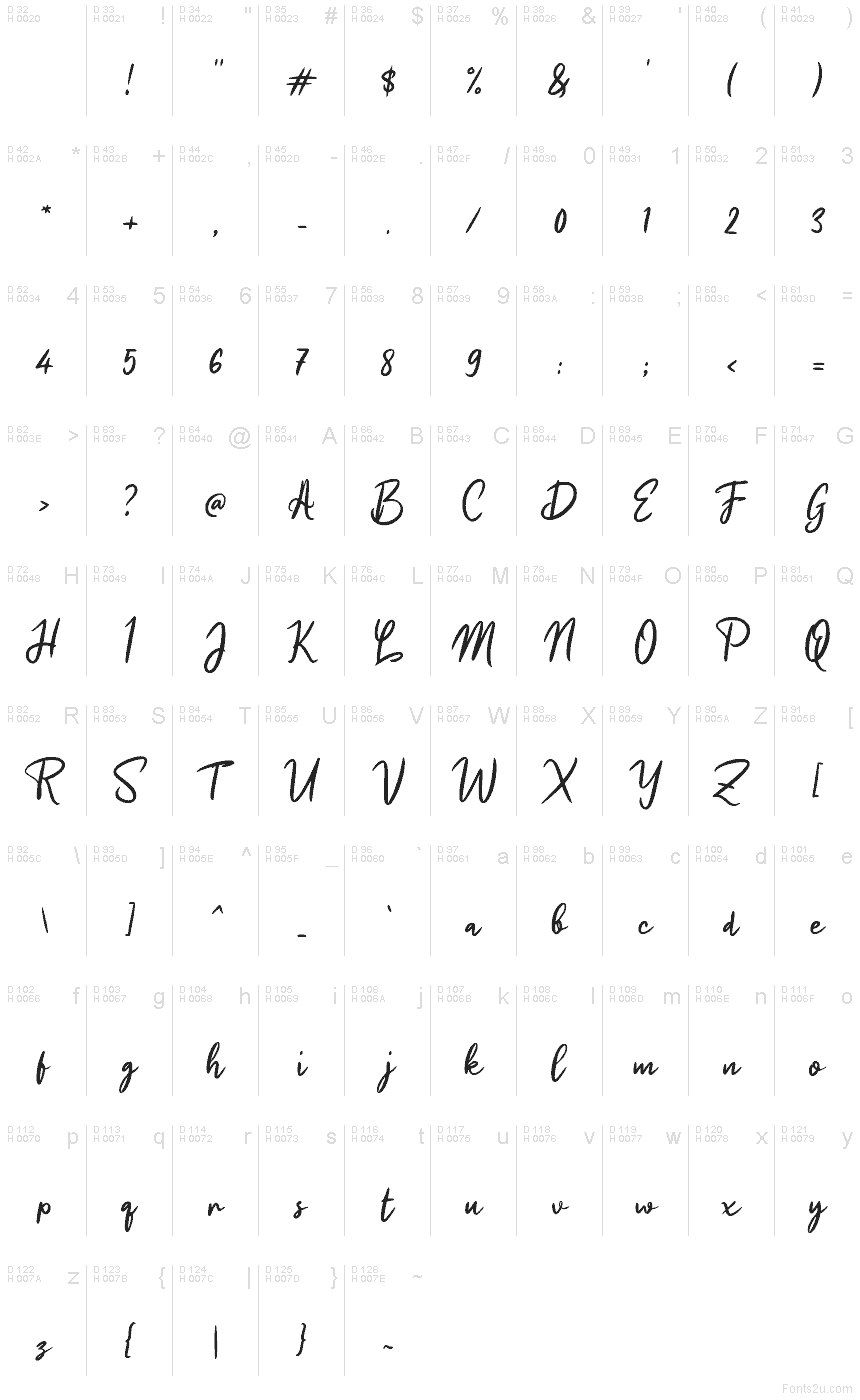
Himsalt
Himsalt font by wep is a modern, light handwritten font with a delicate and friendly presence. The large circular curves seamlessly connect the letterforms giving them more authenticity in each letter. This free script typeface has an expressive mood and confident appearance that even more polished fonts might fail to achieve.
Himsalt is another great typography addition for poster designs, business cards, flyers, print invitations, magazines front pages, packaging layouts, branding projects as well as other digital product developments. Use it also on platforms where typography legibility enhances user experience such as websites and applications.